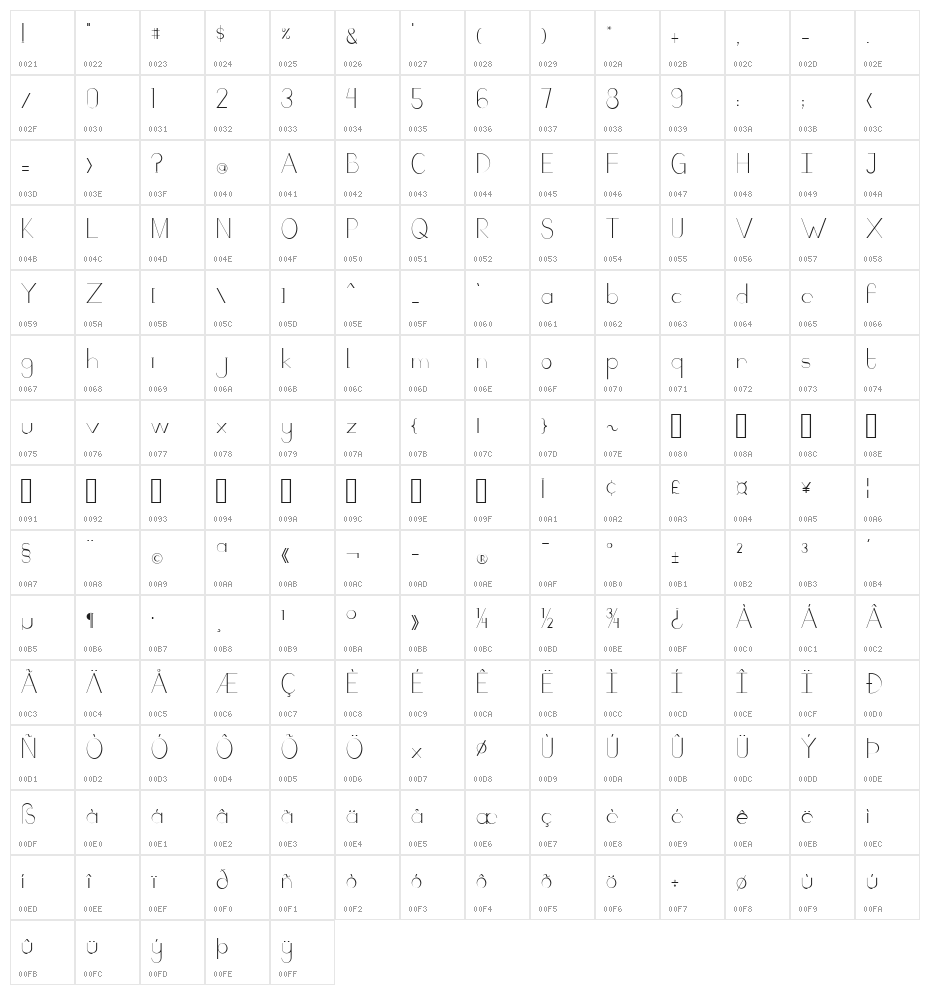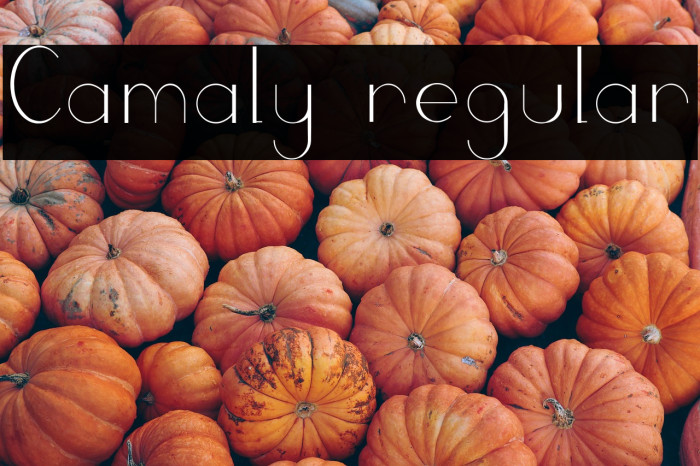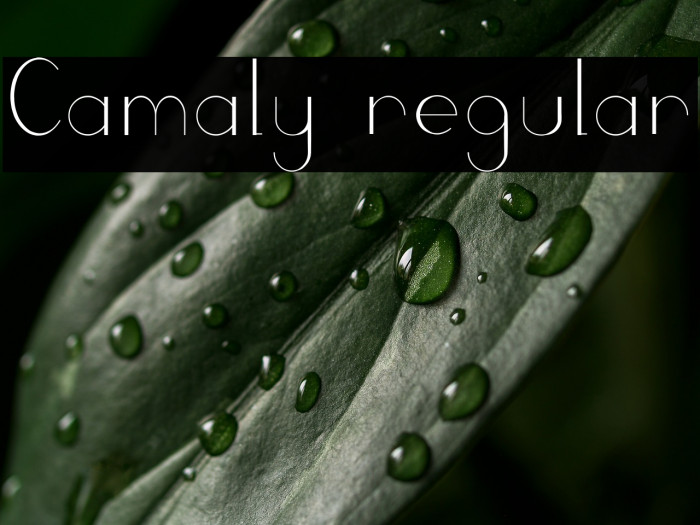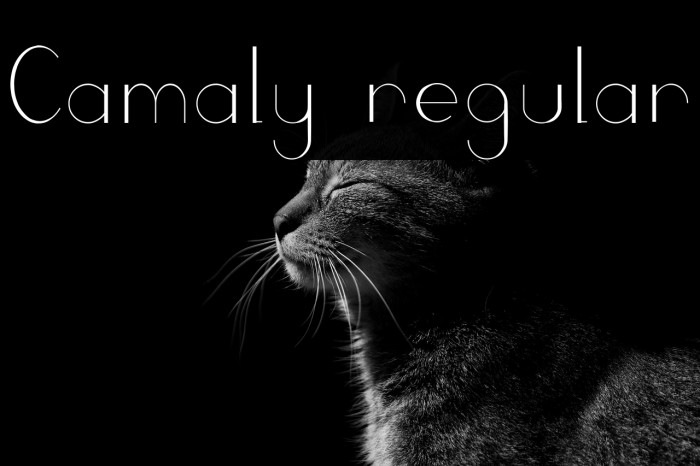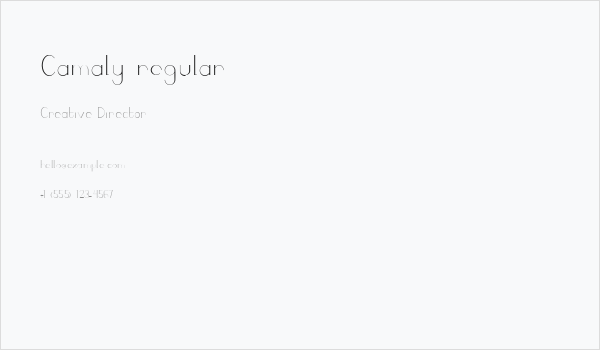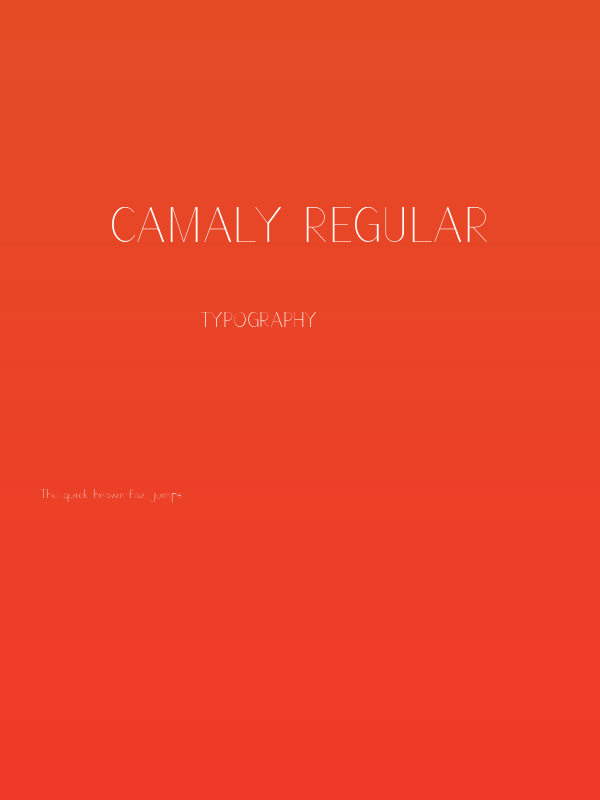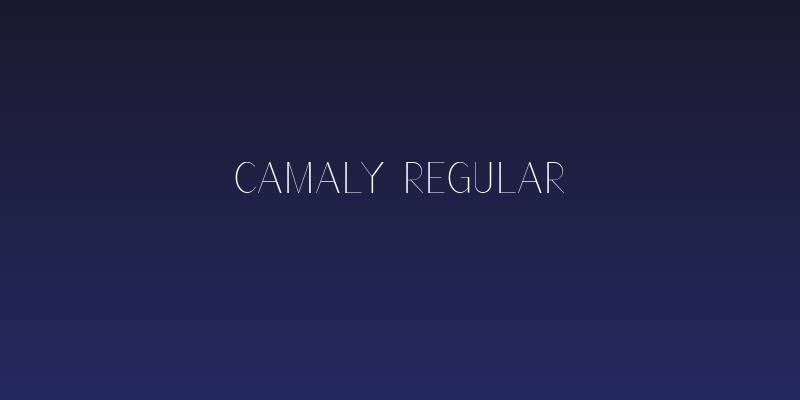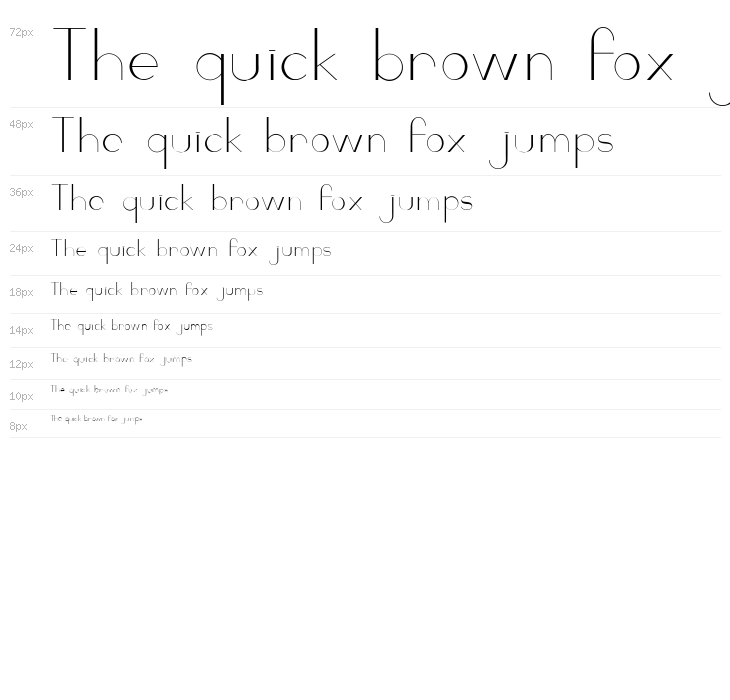
Camaly regular Font
Camaly regular Description
This font features a clean and minimalist design with thin, uniform strokes that give it a modern and elegant appearance. The characters are well-spaced, providing a sense of openness and readability. The uppercase letters are slightly taller than the lowercase, maintaining a consistent line weight throughout. The numerals are distinct and align well with the overall style, while the special characters are crafted to match the sleek aesthetic. This font's simplicity and clarity make it versatile for various design applications.
| Use Case | Headlines, Body text, Logos |
| Proposed Projects | Ideal for branding, editorial design, digital interfaces, and minimalist posters. |